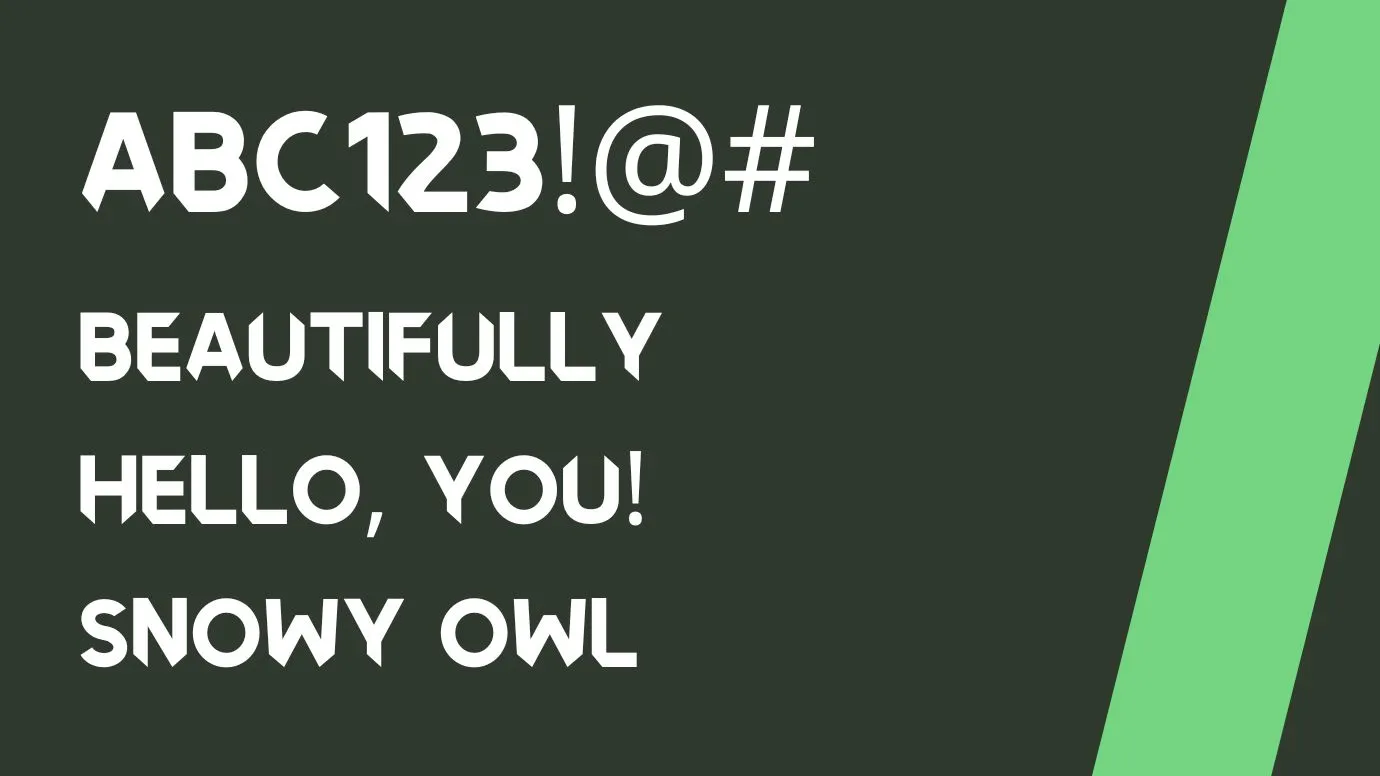
New Type Font is a gothic font designed by Graphicfresh. The typeface is a perfect example of your fun designs.
The typeface is suitable for creating designs, like banners, t-shirts, logos, names, models, cards, and many more. If you are looking for a unique typeface with lots of characters and good matching abilities with other typefaces like chomsky font and skilt gothic font, You will not be disappointed working on personal projects with it.
Creator of New Type Font
The awesome and astonishing typeface is created by Graphicfresh. He has worked very hard to bring creativity to it.
View of New Type Font
| Name | New Type Font |
| Style | Gothic |
| Designer | Graphicfresh |
What typeface does New Type use?
The typeface is Gothic. The typeface is a perfect example for all your fun designs and projects with lots of versatility.
Can I use the New Type typeface in a logo?
The typeface is appropriate for a logo or other branding material. You can create many unique brand logos with it.
Is New Type typeface legible?
The typeface is quite legible. It is also very easy to read. The typeface has thick strokes that you can read properly from a distance.